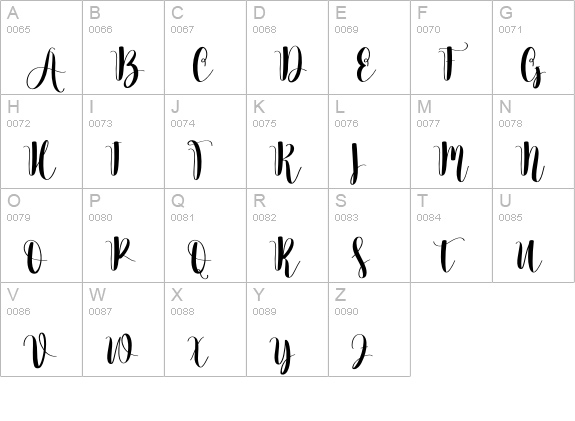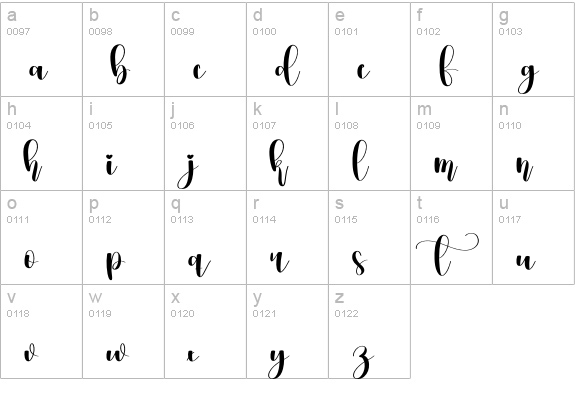
Farmhouse Font Details
Farmhouse is a free for personal use font in the Script > Handwritten category, designed by scratchones. It has been downloaded 10 times and is available for Windows, Mac and Linux.
Farmhouse font is a charming and rustic typeface that brings a touch of nostalgia and warmth to any project. With its handcrafted feel and vintage appeal, Farmhouse font is perfect for a wide range of design applications, from logos and branding to invitations and social media graphics.